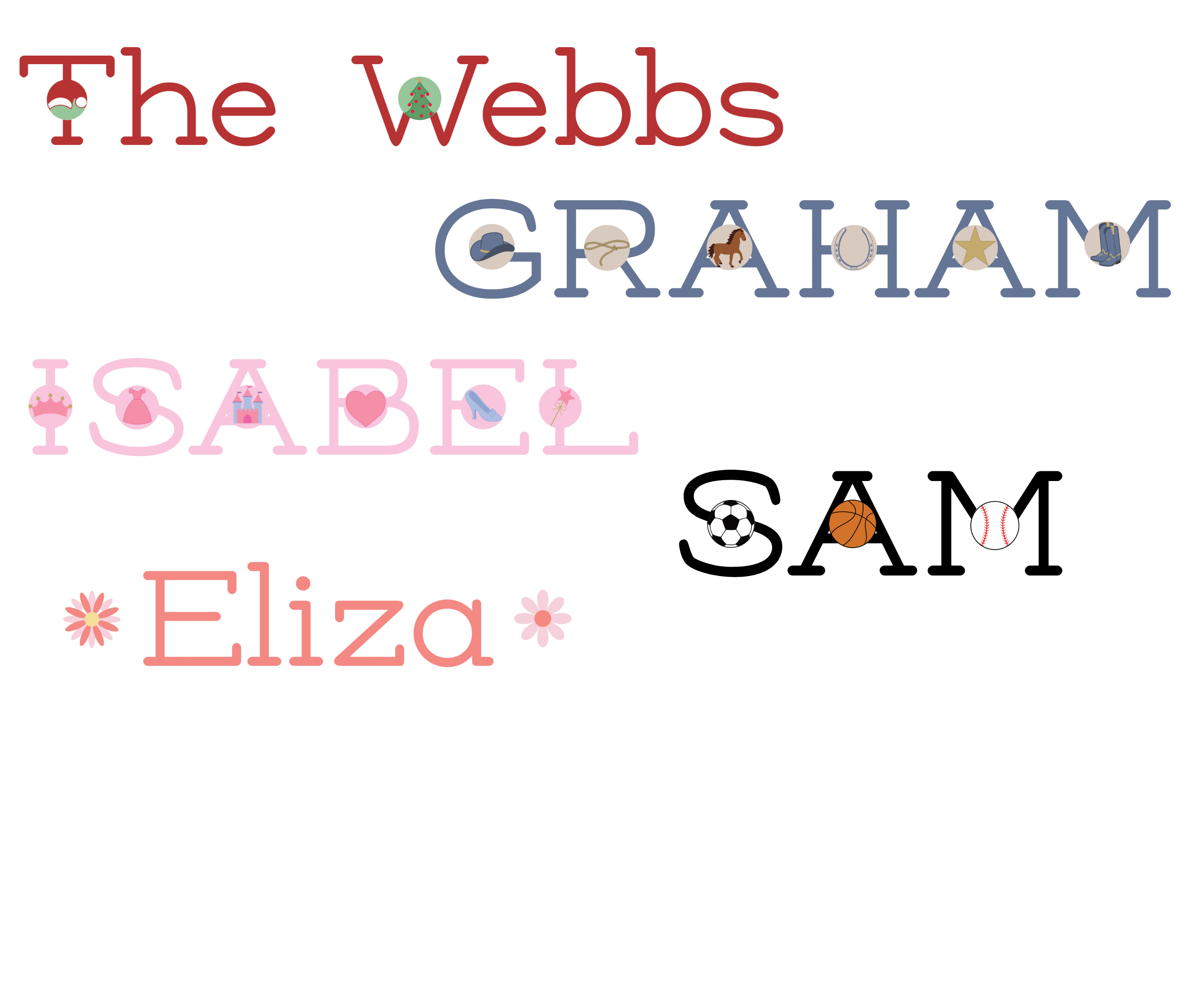
Single Remington Font Set for Print
Inspired by the old school Remington typewriters, we developed this timeless typeface with a modern twist.
Our Single Remington Font Set has two fonts in one package!
Font Package 1: 26 uppercase letters, 26 lowercase letters, numbers 0-9, 4 punctuation marks.
Font Package 2: 26 uppercase letters with open spaces to allow for mini designs, 26 lowercase letters, numbers 0-9, 4 punctuation marks.